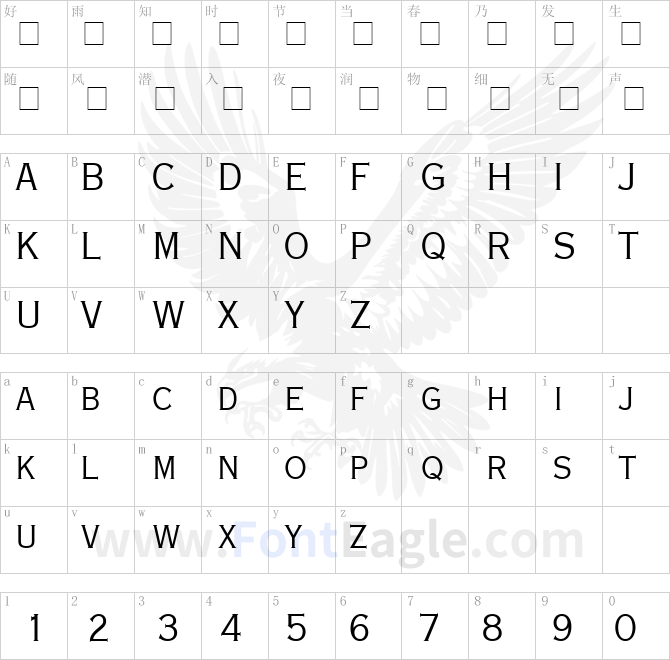
Copperplate-Light-Condensed-SSi-Light-Condensed is a great font, widely used in graphic design, single-page menu design, poster design and other fields, and is deeply loved by designers.Copperplate-Light-Condensed-SSi-Light-Condensed download.